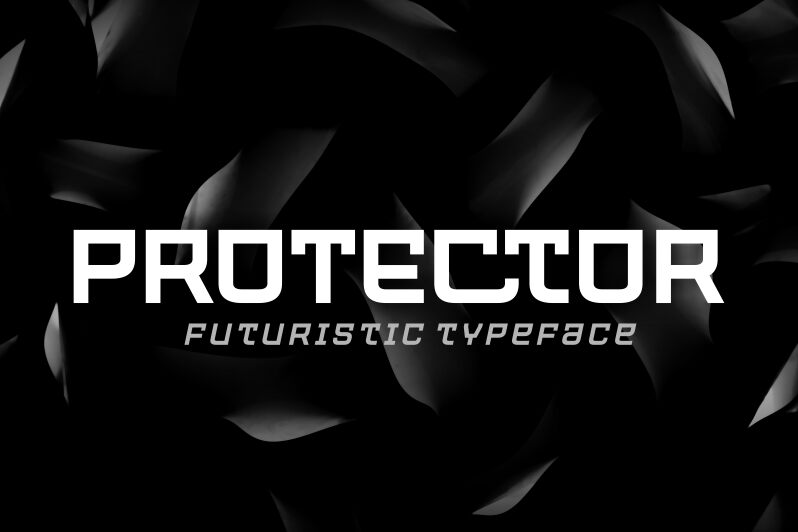
PROTECTOR Italic
Protector Italic is a captivating font designed by Situjuh Nazara. Its striking aesthetic is characterized by bold, angular letterforms that exude a sense of strength and resilience. The italicized styling lends a dynamic, forward-moving energy, making this font an excellent choice for projects that require a bold, impactful presence.
Its versatility shines through, as Protector Italic can seamlessly transition from headers and titles to body text, lending a distinct visual flair to a wide range of applications, from editorial design to packaging and branding.